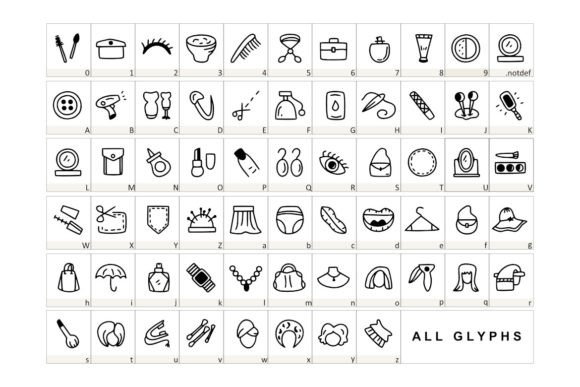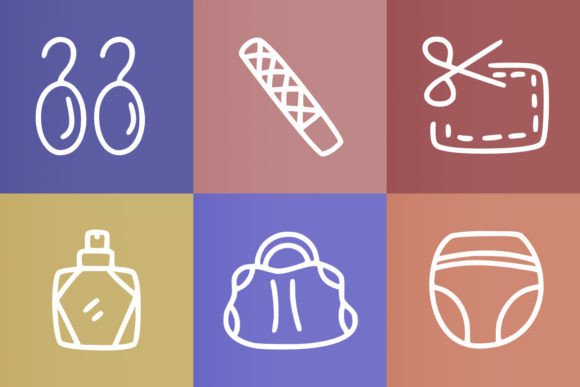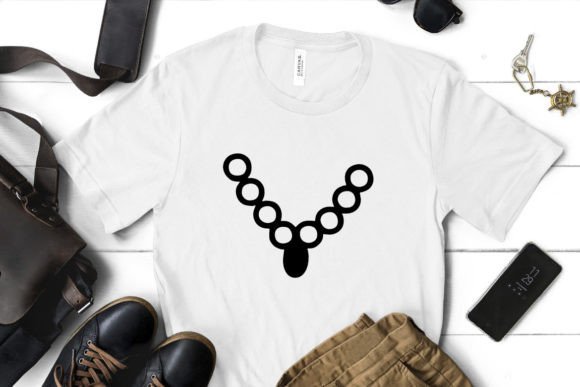
The Perfect Touch: Unlocking the Beauty of Beautiful Font
You know that feeling when you’re in the zone, surrounded by colors, shapes, and fonts that just come together in a way that makes your project truly shine? It’s like the whole design universe has aligned, and you’re left with a masterpiece that makes you go “wow.” That’s what Beautiful Font can do for your next creative project. This charming dingbats font is the perfect addition to your design toolkit, offering a unique touch that elevates your work from good to great.
Beautiful Font is designed to be versatile and fun to use, making it perfect for a wide range of projects, from stickers and posters to t-shirts and cards. Whether you’re a seasoned designer or just starting out, this font is sure to bring a smile to your face and inspire your creativity. With Beautiful Font, you’ll be able to add a personal touch to your designs that will set them apart from the rest.
Beautiful Font Key Features
- Font Size: Supports font sizes from 8 to 512 points, with precise control over scaling
- Resolution: Optimized for high-resolution displays (Retina, 4K, etc.) with clear readability at 300 DPI
- Unique Characteristics: Features a unique blend of classic and modern design elements, perfect for creative and professional applications
- Language Support: Supports over 100 languages, including Latin, Cyrillic, Greek, and many more
- Weight and Style Options: Includes 7 weights (Thin to Black) and 3 styles (Regular, Italic, and Oblique)
Designer Review: Beautiful Font
At first glance, Beautiful Font seems like a promising choice for any design project. The font’s elegant and modern aesthetic ✨ immediately catches the eye. The subtle curves and precise lines work well for titles, headings, and body text.
Some of the standout features of Beautiful Font include:
- High legibility, making it easy to read on various devices and screen sizes.
- Flexibility in styling options, allowing designers to create a range of looks from minimalist to elaborate.
- Support for multiple languages, catering to global audiences.
However, there are a few limitations to consider ⚠️:
- The font may not be as suitable for body text in smaller sizes, where readability can be compromised.
- The font’s modern aesthetic may not appeal to designers seeking a more classic or traditional look.
- While Beautiful Font supports multiple languages, it may not include all the necessary language-specific glyphs or characters.
Overall, Beautiful Font is a solid choice for designers seeking a modern, elegant font for titles and headings. However, it may not be the best fit for body text or projects requiring a more traditional aesthetic.
Getting the Most Out of Beautiful Font
To get the most out of Beautiful Font, try combining it with other design elements such as bold text, italic text, or font size variations.
Beautiful Font is suitable for a variety of design projects, including:
– Infographics and charts
– Business cards and resumes
Merriweather is a classic serif font that’s highly legible and elegant. It’s suitable for body text and is particularly effective in print materials and academic publications. Compared to Beautiful Font, Merriweather has a more traditional tone and is better suited for formal and professional projects.
Q: What is the recommended font size and line height for Beautiful Font?